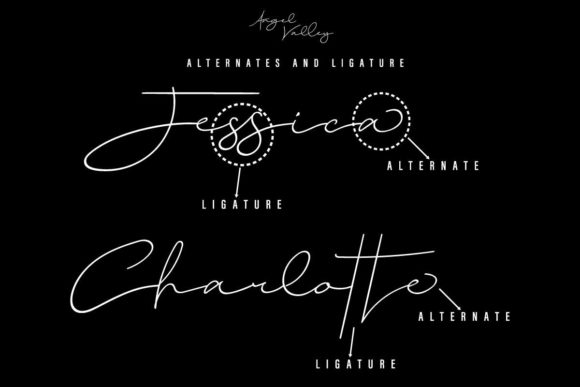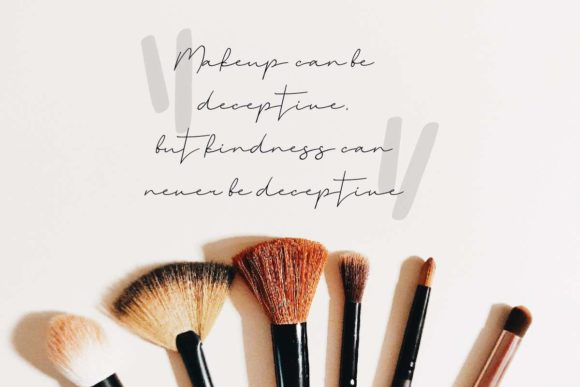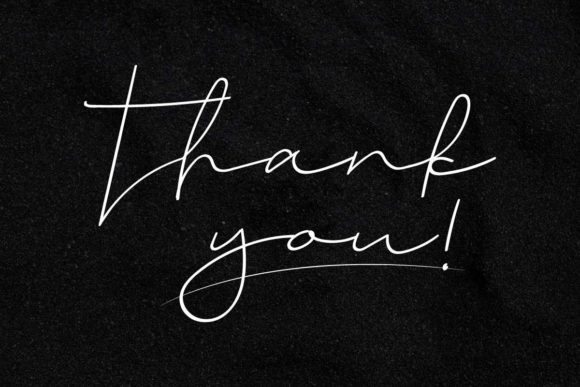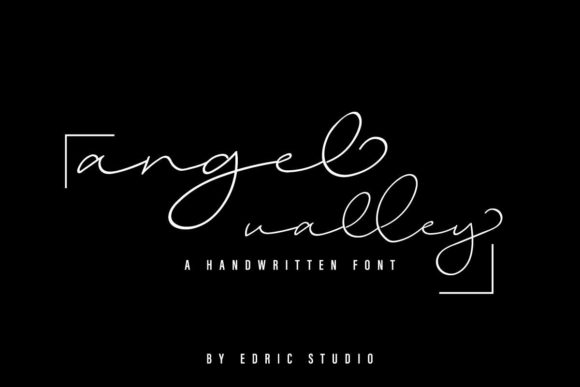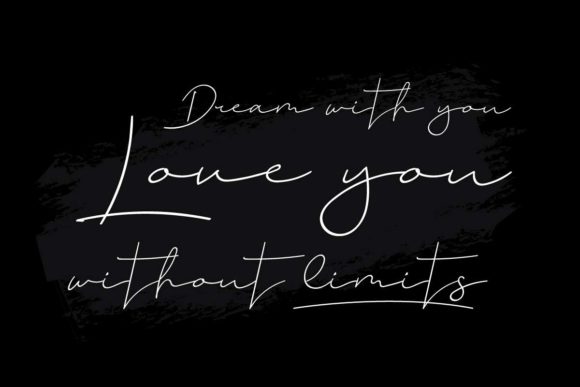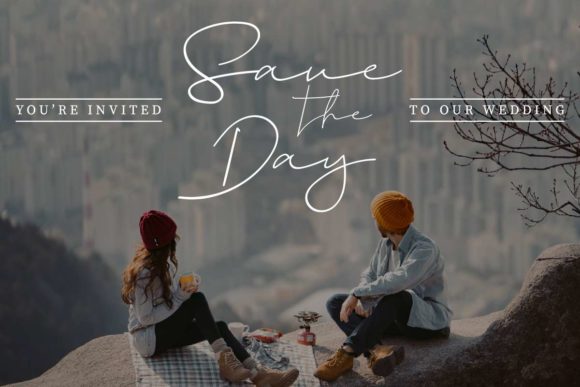
Angel Valley Font
Angel Valley is a sweet and romantic handwritten font. Its relaxed and flowing style makes this font incredibly fit for a wide variety of creative ideas. This font is PUA encoded which means you can access all of the glyphs and swashes with ease! It features a varying baseline, smooth lines, gorgeous glyphs and stunning alternates.